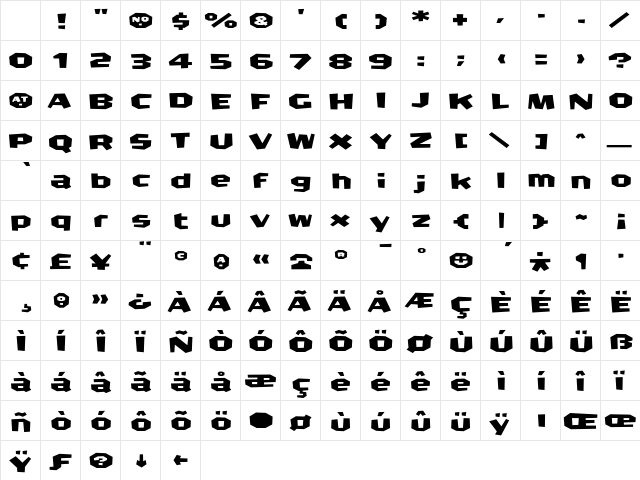
CrashBangWallop Medium Free Font
CrashBangWallop Medium
Complete CrashBangWallop Medium glyph index. Displaying only characters natively supported by CrashBangWallop Medium font.
Design Context for CrashBangWallop
CrashBangWallop is a composed and adaptable typeface that performs quietly and consistently across a wide range of design contexts.